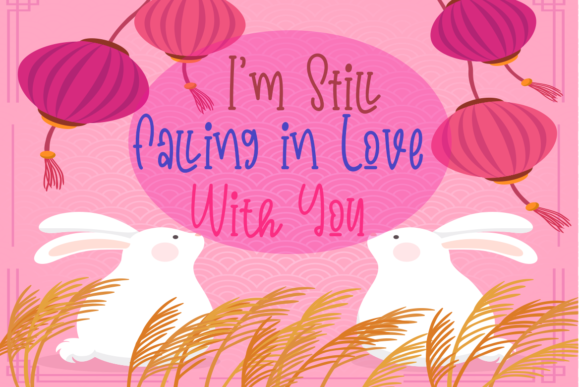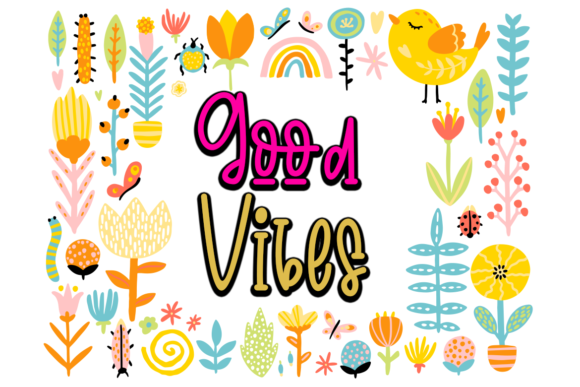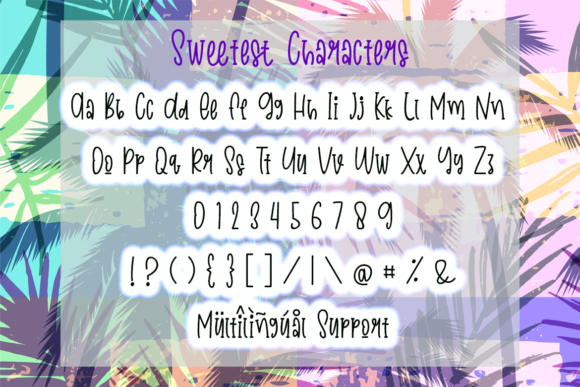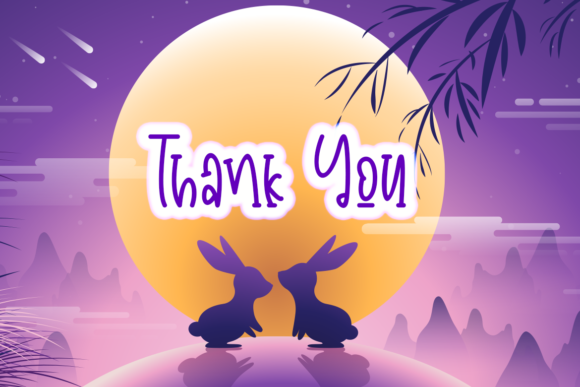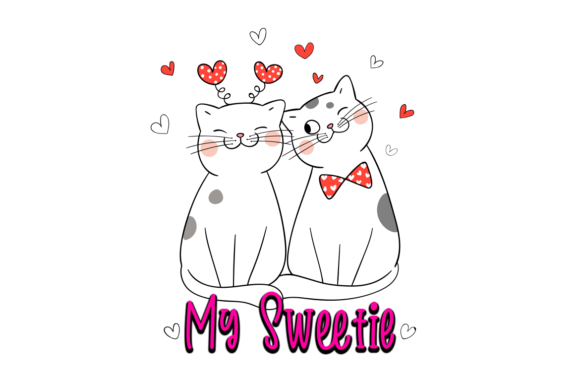
Sweetest Font
About Sweetest Font
Sweetest is a cute and friendly handwritten font. It embodies playfulness and authenticity and is the perfect choice for any children activity or school project.